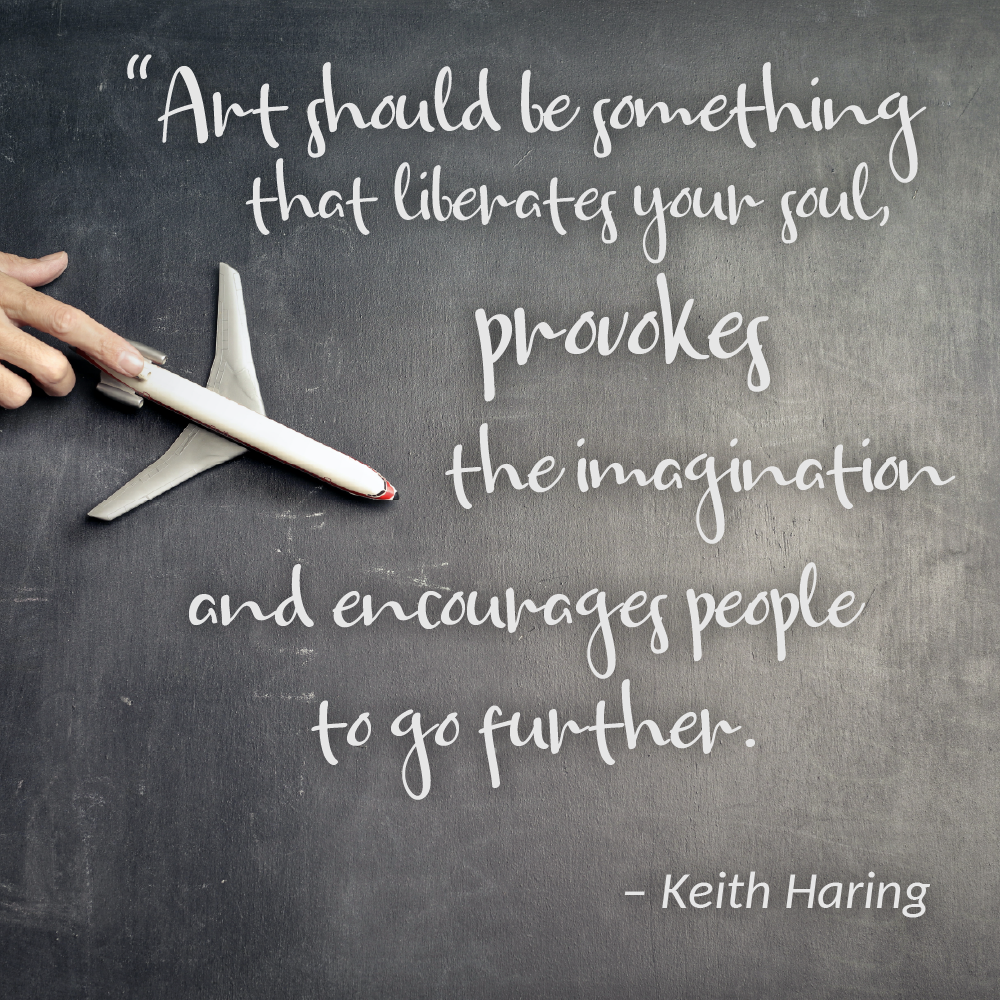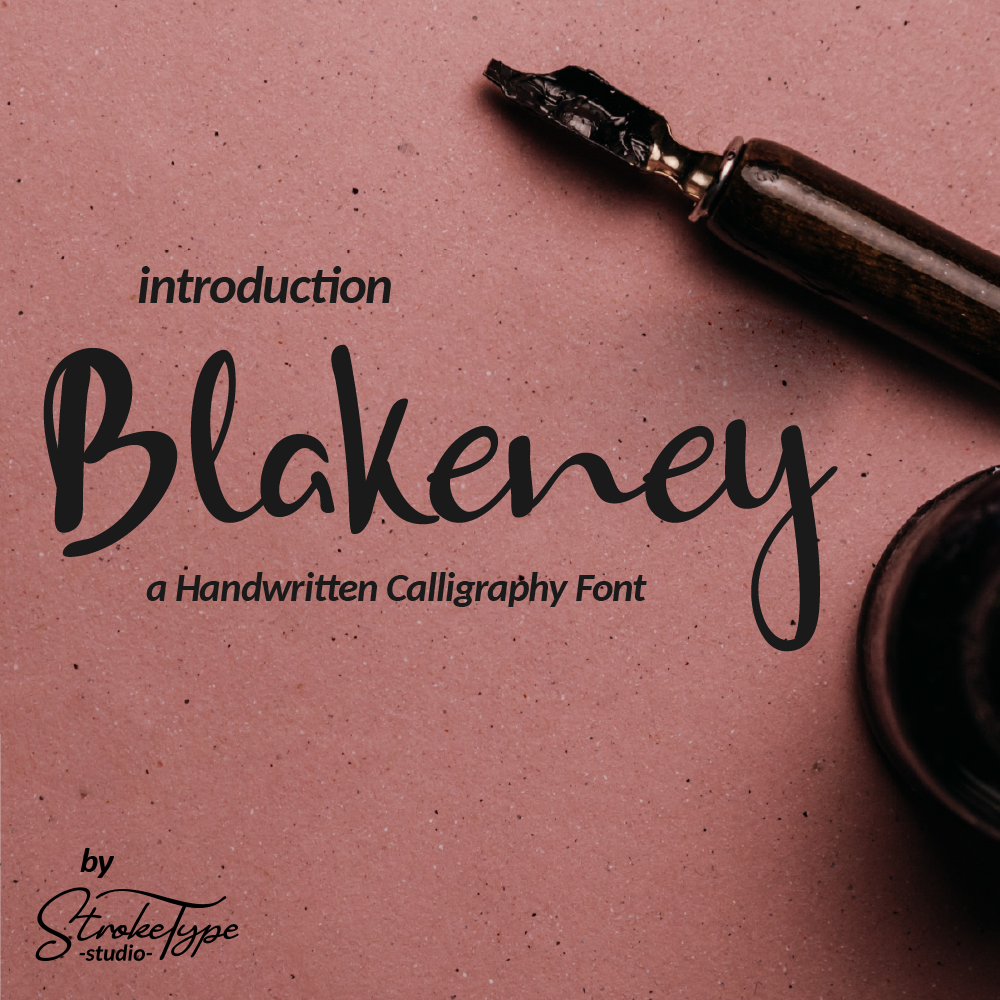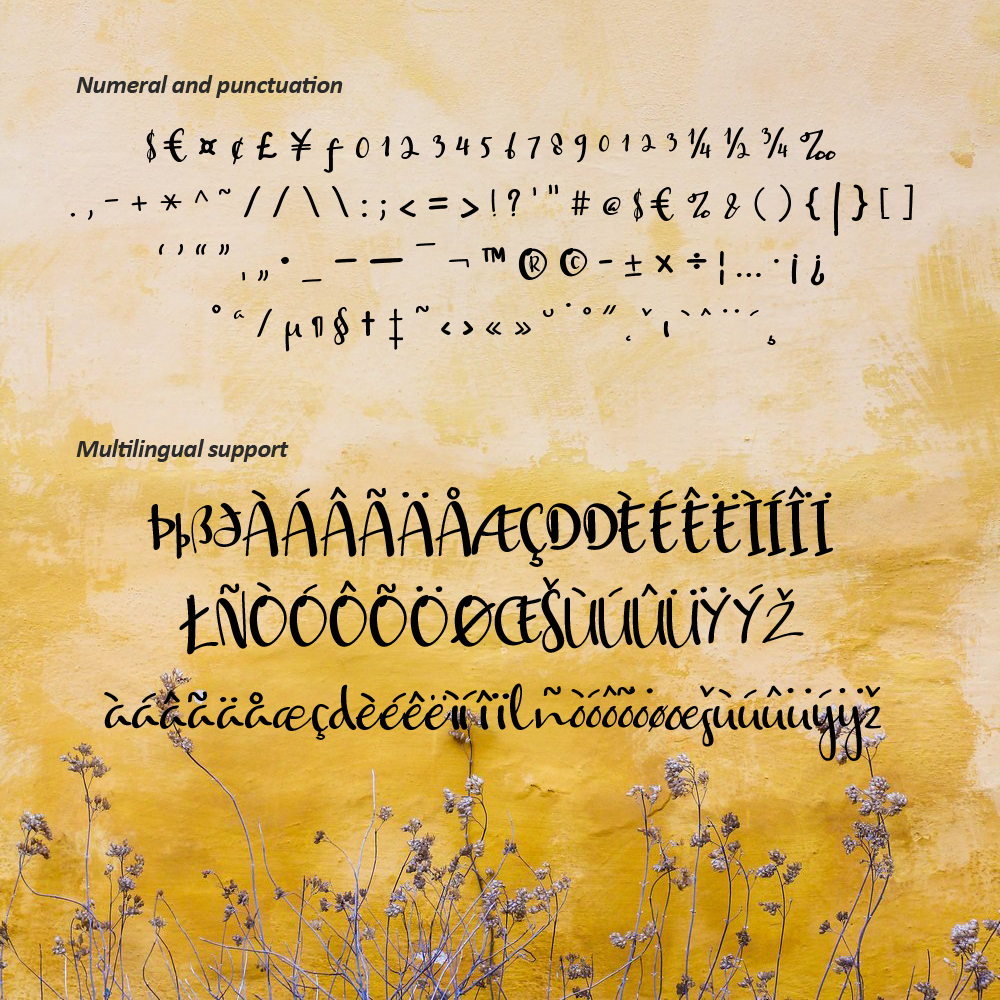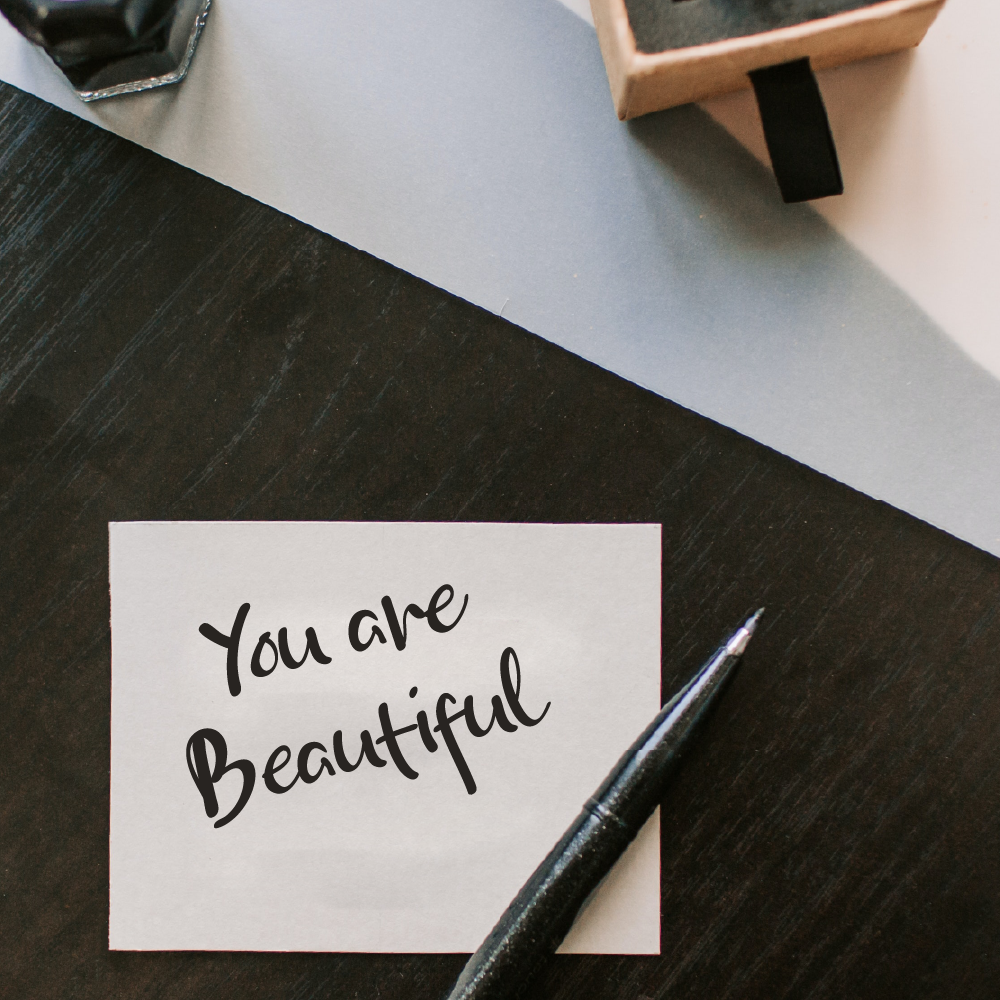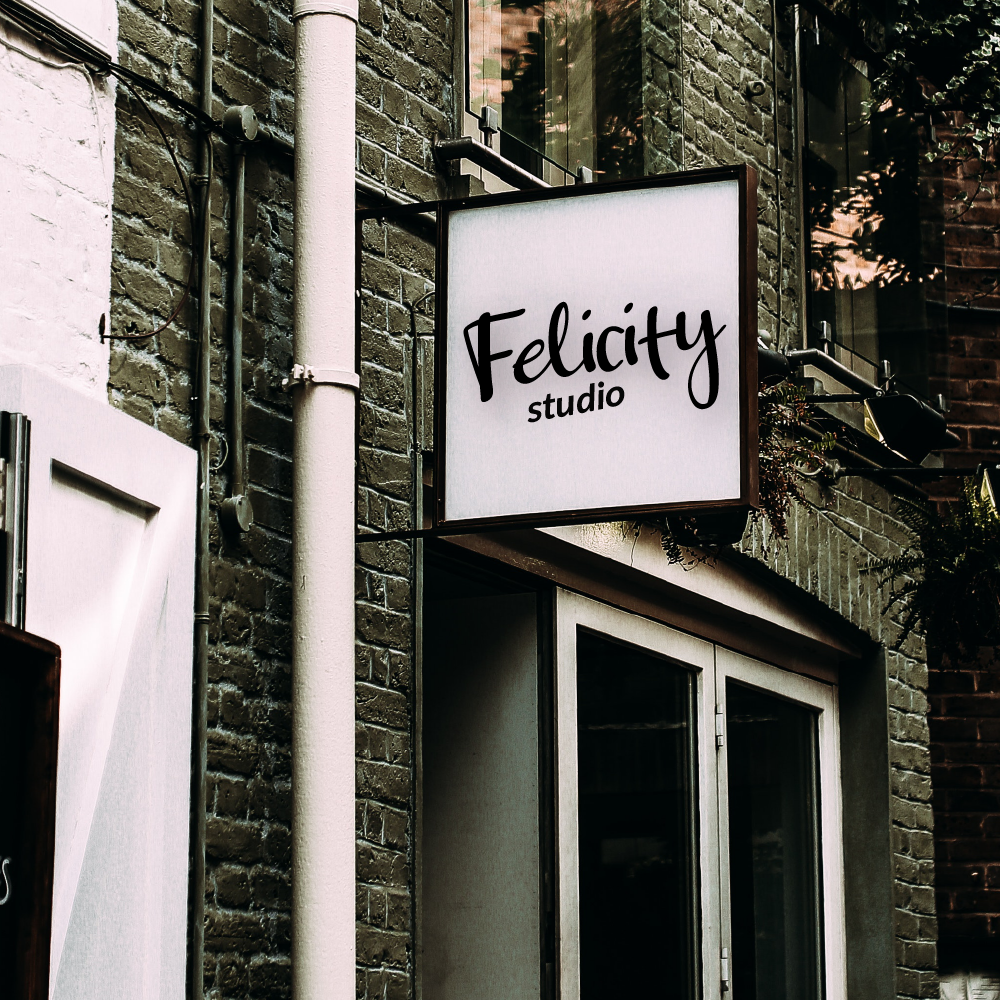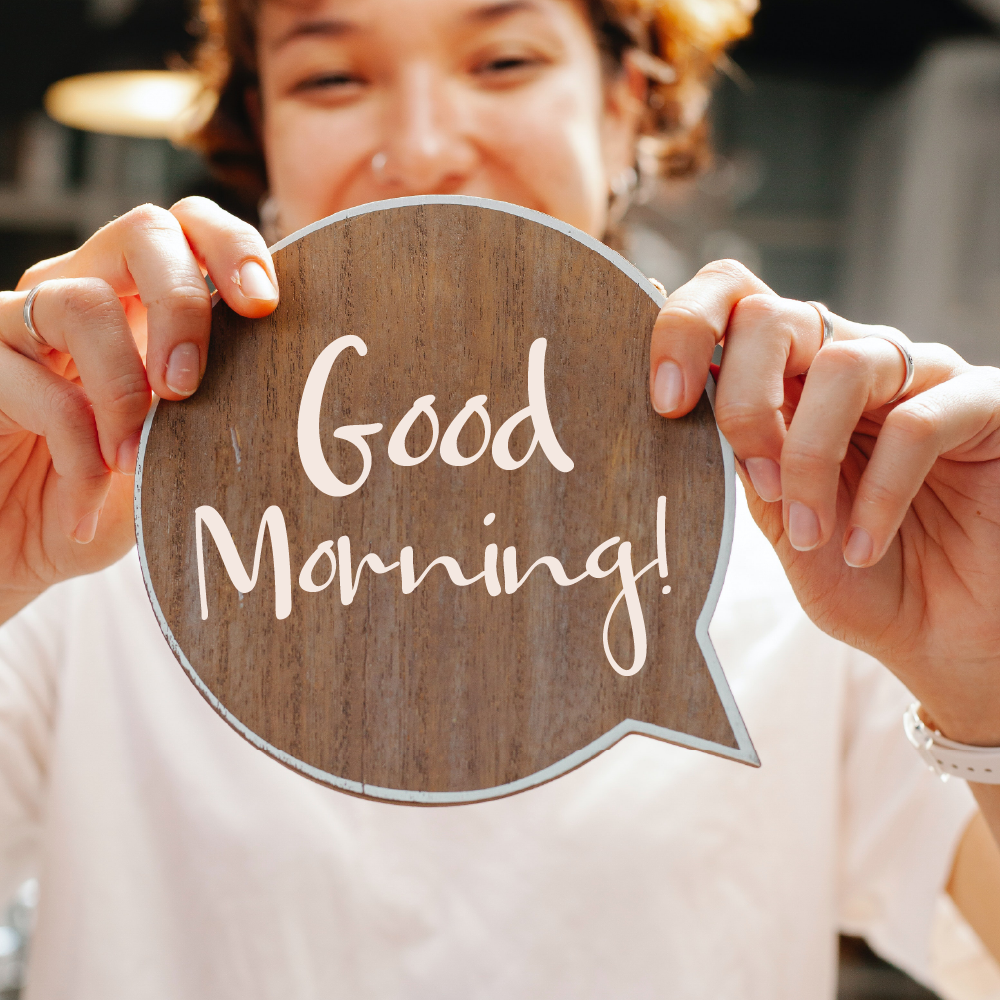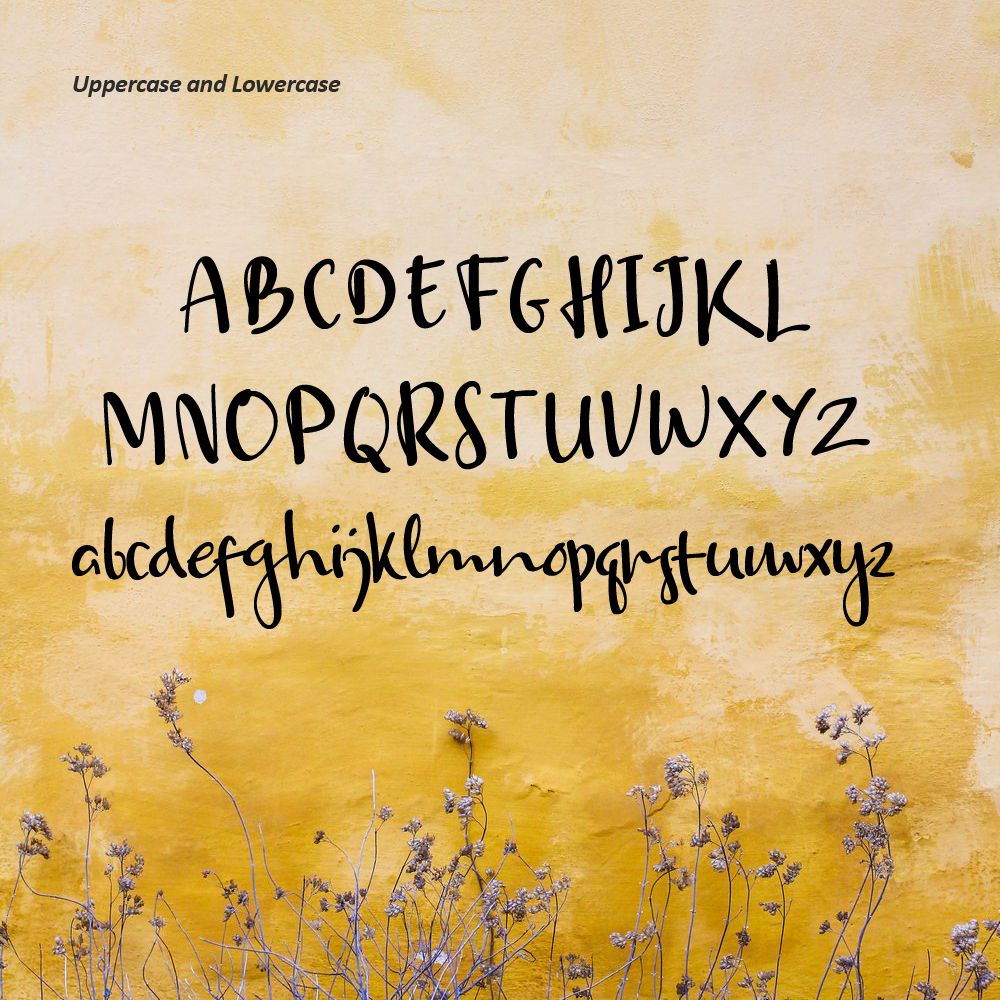
Blakeney Handwritten Font
Introducing the Blakeney Handwritten Font!
Blakeney is a Stylish Handwritten font, with a natural & stylish flow. Blakeney Font is perfect for many different project such as logos & branding, invitation, stationery, wedding designs, social media posts, advertisements, product packaging, product designs, label, photography, watermark, special events or anything.
Features
- Uppercase and Lowercase letters
- Numbering and Punctuations
- Multilingual Support